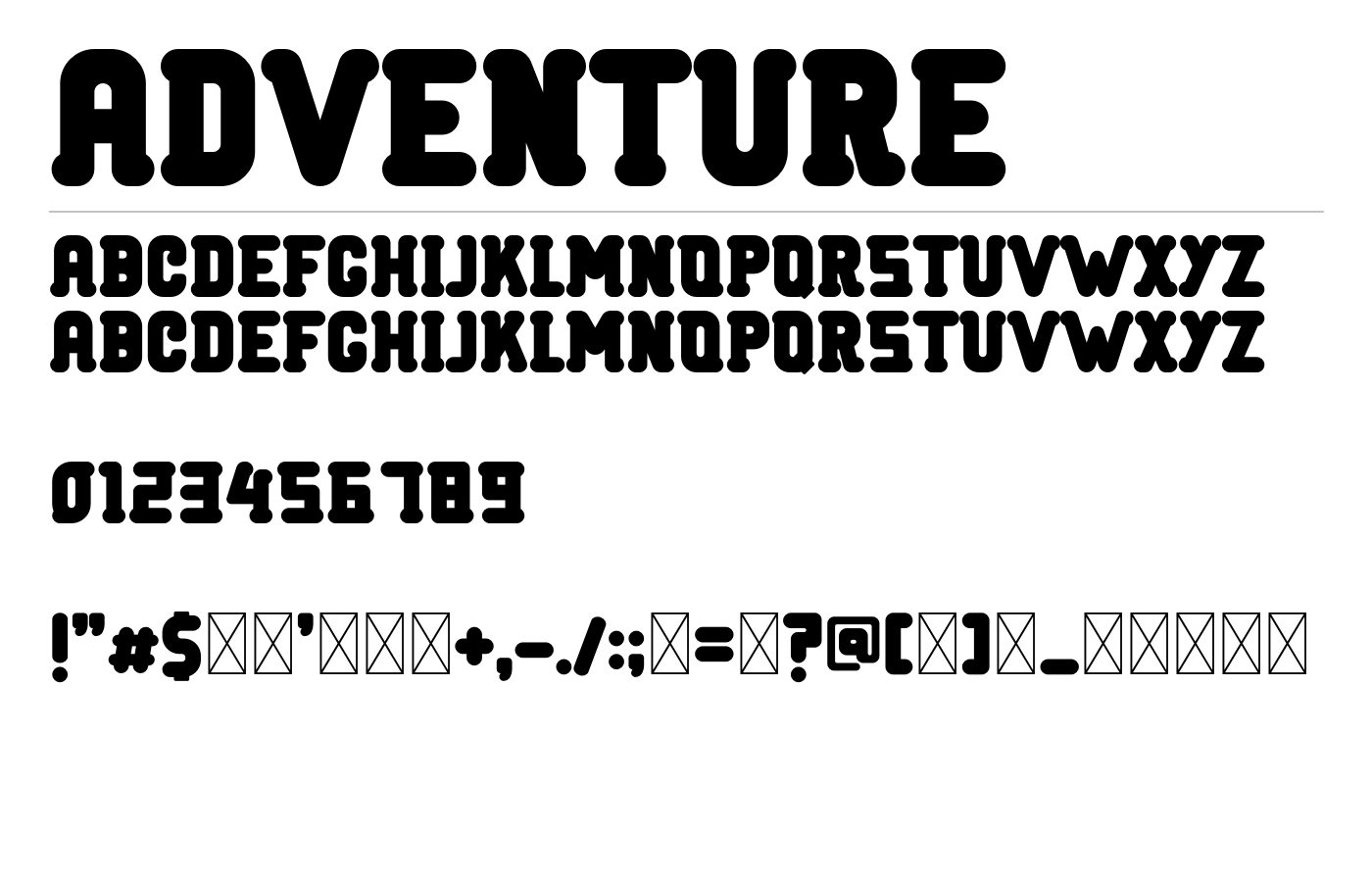
Adventure Font is a bold, rounded slab serif typeface with a strong, playful personality. Its thick strokes and soft, pill-shaped serifs create a friendly yet sturdy look, making it ideal for headlines, logos, and designs that need a fun but reliable feel. This font works great in branding for outdoor activities, children’s products, or any project seeking an approachable and adventurous vibe.
Adventure Font
About Adventure Font
| Font family | Adventure Font |
| Designer | designvector10 |